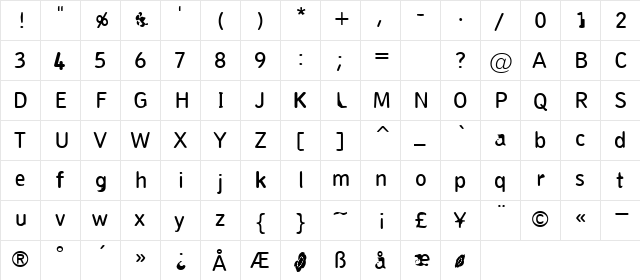
Pungen Regular Font Preview
Pungen Regular
Design Context for Pungen Typeface
Pungen offers clean, dependable letterforms without strong stylistic allegiance, making it a practical choice for designers who need flexibility.